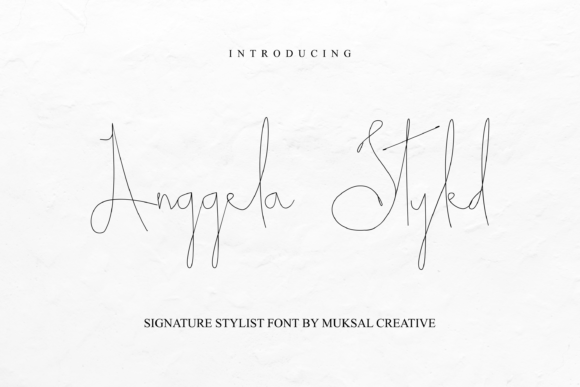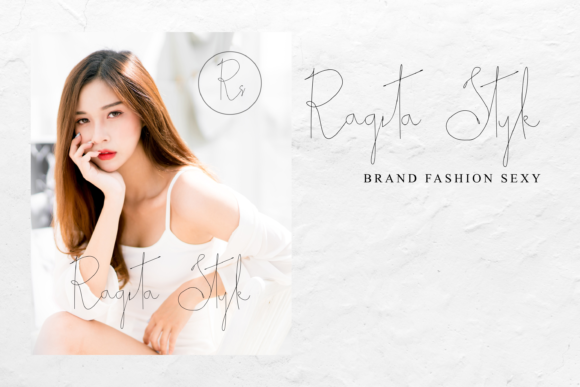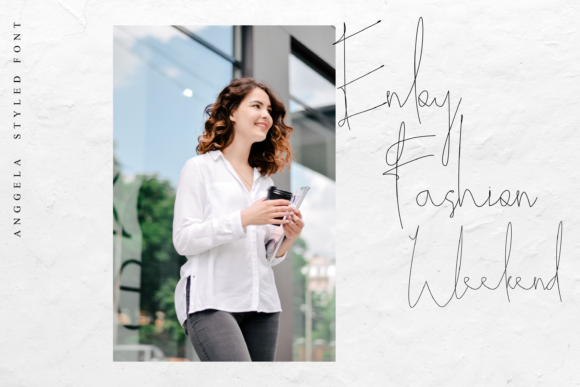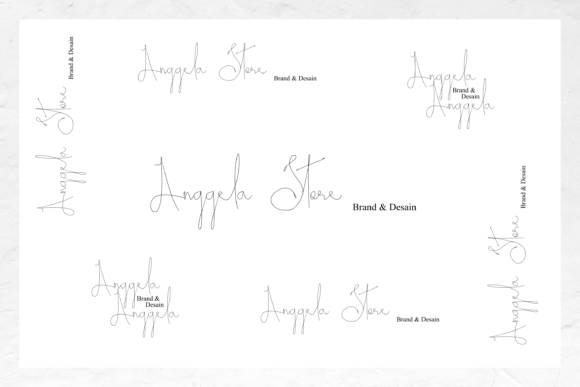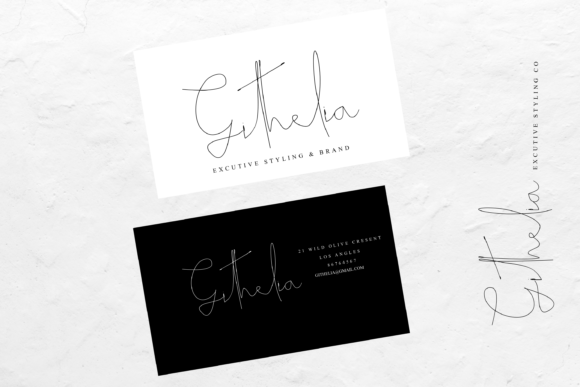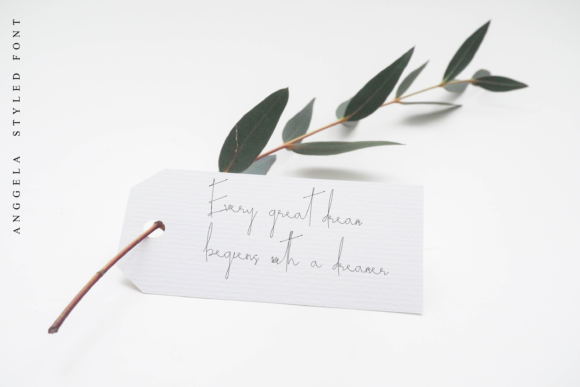
HomeScript FontsAnggela Styled Font Script Fonts Anggela Styled Font FacebookXPinterestWhatsApp Anggela Styled Font Poster 2 Anggela Styled Font Poster 3 Anggela Styled Font Poster 4 Anggela Styled Font Poster 5 Anggela Styled Font Poster 6 Anggela Styled Font Poster 7 About Anggela Styled Font Anggela Styled is a modern calligraphy font. It has a sweet touch and curves to make your text really sparkle! DOWNLOAD ON CREATIVE FABRICAThis font is sold and delivered by Creative Fabrica. Font Canyon may earn a commission if you buy through this link. People also explored Beernade Font Mermaid in Love Font Ledgewood Font The Garisha Font Innocent Girl Affection Font Motiva Sans Deadline Crispbake 266 0 TagsAnggela Styled Font Previous articleSummer Beach FontNext articleYuanita Font LEAVE A REPLY Cancel reply Comment: Please enter your comment! Name:* Please enter your name here Email:* You have entered an incorrect email address! Please enter your email address here Website: Save my name, email, and website in this browser for the next time I comment. Personal Use Free Moon Light Personal Use Free Read more about this font Gila Personal Use Free Read more about this font Calling Personal Use Free Read more about this font Nouradilla Script Free Version Personal Use Free Read more about this font BLOG Modern Sans-Serif Fonts That Brands Love in 2025 In 2025, modern sans-serif fonts remain a top choice for brands looking to project clarity, professionalism, and... Top 10 Handwritten Fonts That Elevate Your Designs Top 7 Google Fonts Alternatives for Faster and Privacy-Friendly Web Design (2025) Best Fonts for T-Shirt Design – Top 2025 Picks